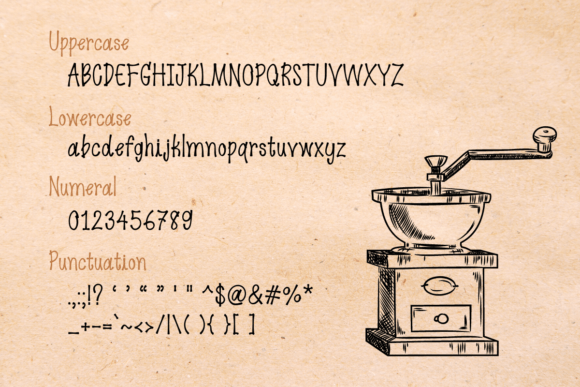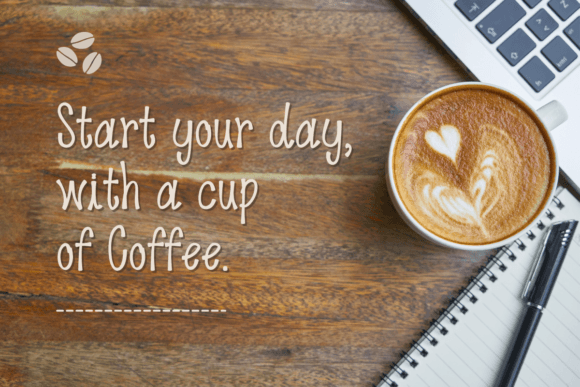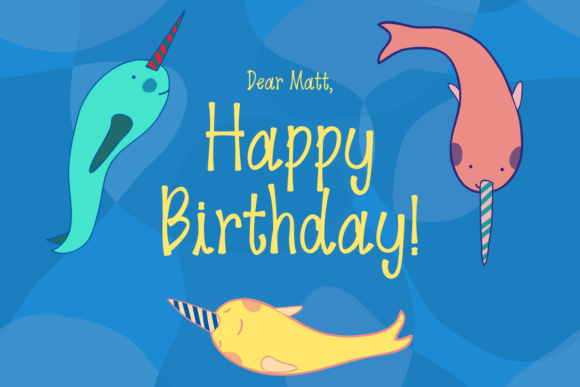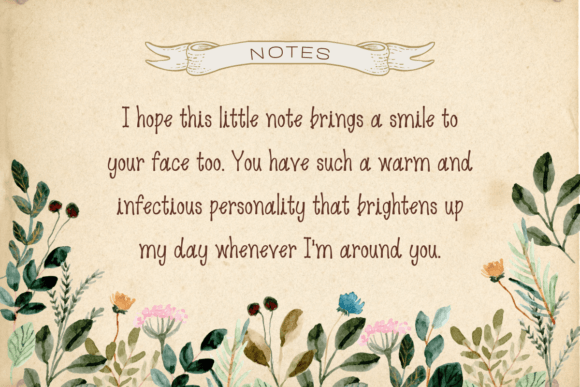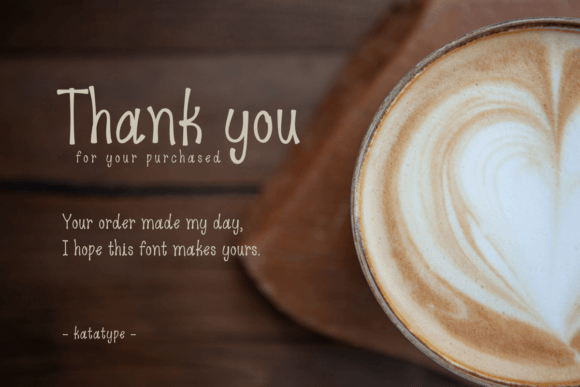
Introducing Espresso Font: A Handwritten Delight for Designers and Crafters
Are you tired of using the same old fonts in your designs? Look no further than Espresso Font, a handwritten font that adds a raw and expressive feel to any project. With its unique characters and slightly uneven thickness, Espresso is the perfect choice for designers and crafters looking to add a touch of personality to their work.
The Unique Charm of Espresso Font
Espresso Font is a one-of-a-kind font that stands out from the crowd. Its handwritten feel gives it a personal and organic look that’s perfect for a wide range of design projects. The font’s characters have a slightly uneven thickness, which adds to its fun and playful vibe. This unique feature makes Espresso Font perfect for designs that require a touch of whimsy and personality.
One of the best things about Espresso Font is its versatility. This font can be used for both print and digital media, making it a great addition to any designer’s toolkit. Whether you’re working on a logo, brochure, website, or social media post, Espresso Font is the perfect choice. Its clear and legible design ensures that your message gets across, while its unique charm adds a touch of personality to your design.
Espresso Font is a dream come true for designers and crafters. Its handmade feel makes it perfect for a wide range of creative projects, from handmade cards and invitations to branding and advertising materials. The font’s raw and expressive feel adds a touch of emotion to any design, making it perfect for designers who want to create a connection with their audience.
Use Espresso Font in Your Designs
So, how can you use Espresso Font in your designs? Here are a few ideas to get you started:
- Logos and branding materials: Espresso Font is perfect for creating unique and memorable logos that stand out from the crowd.
- Print materials: Use Espresso Font in brochures, flyers, and posters to add a touch of personality to your print materials.
- Digital media: Espresso Font is perfect for websites, social media posts, and email marketing campaigns.
- Handmade crafts: Use Espresso Font to add a personal touch to your handmade cards, invitations, and other crafts.
Tips for Using Espresso Font
Here are a few tips for using Espresso Font in your designs:
- Keep it simple: Espresso Font is a statement font, so use it sparingly to avoid overwhelming your design.
- Mix and match: Combine Espresso Font with other fonts to create a unique and interesting design.
- Experiment with colors: Espresso Font looks great in a wide range of colors, so don’t be afraid to experiment and find the perfect hue for your design.
Espresso Font is a unique and versatile font that’s perfect for designers and crafters. Its handwritten feel and slightly uneven thickness add a touch of personality to any design, making it perfect for a wide range of creative projects. Whether you’re working on a logo, brochure, website, or handmade craft, Espresso Font is the perfect choice. So why not give it a try and see the difference it can make in your designs?